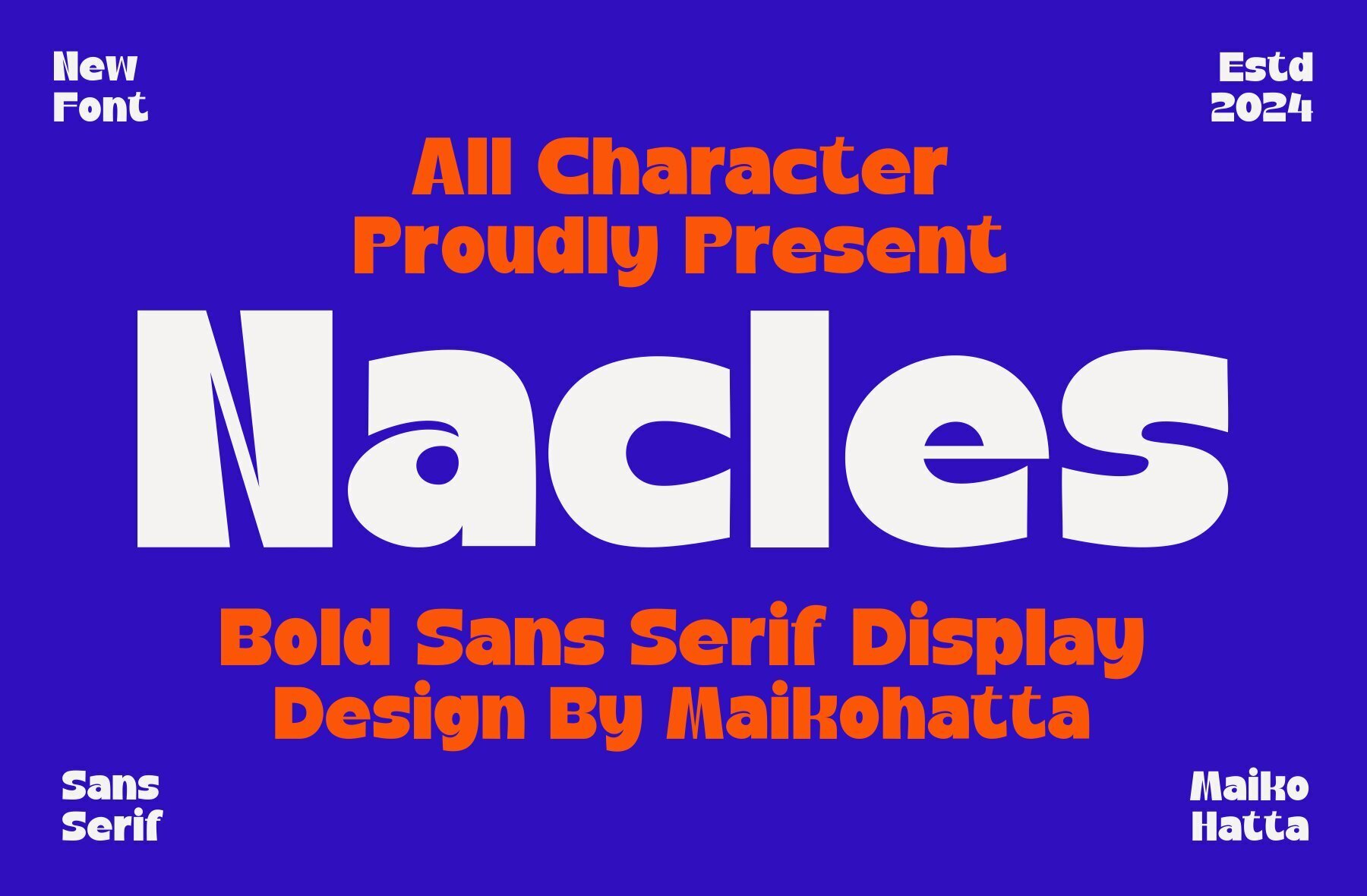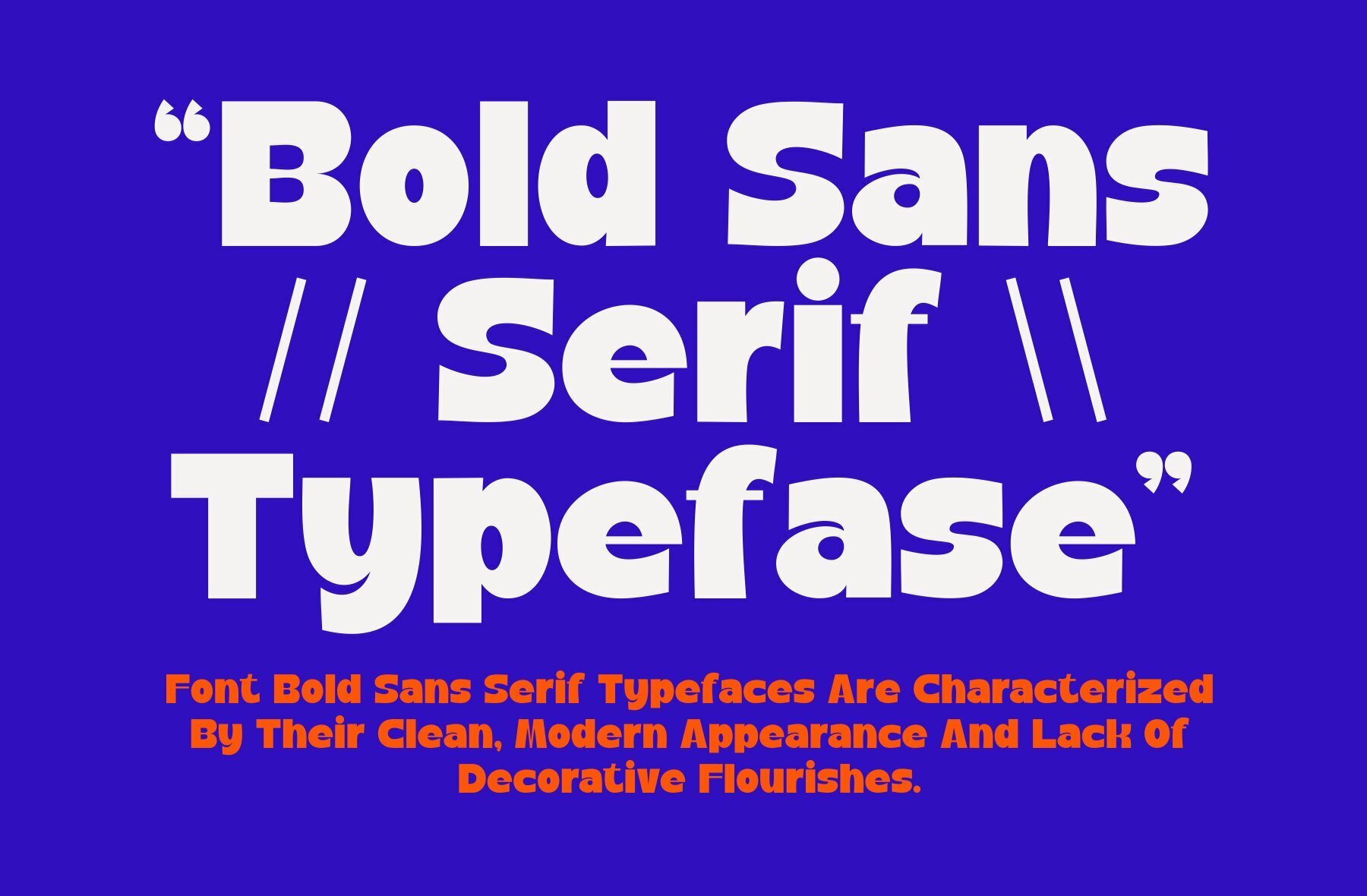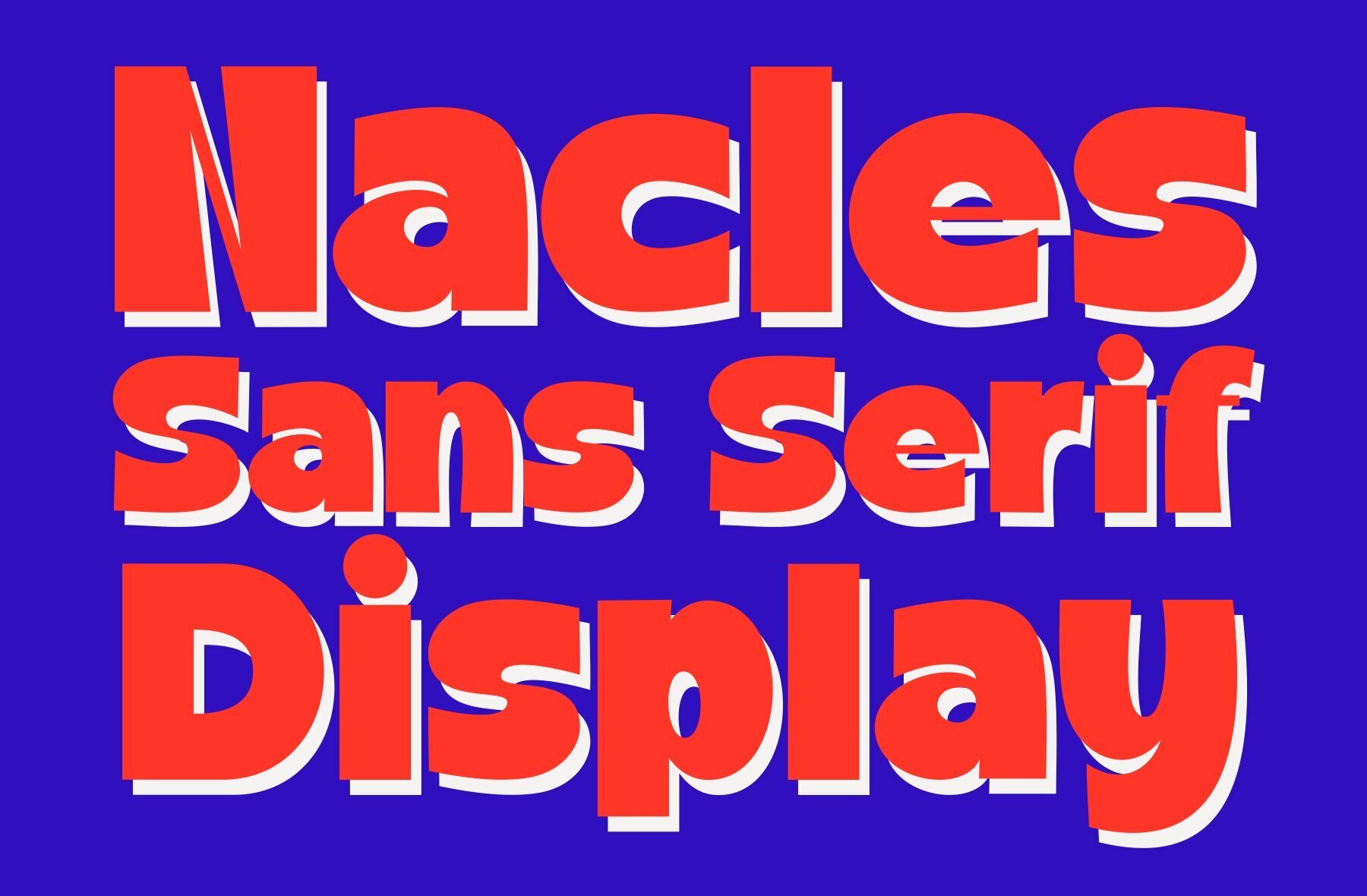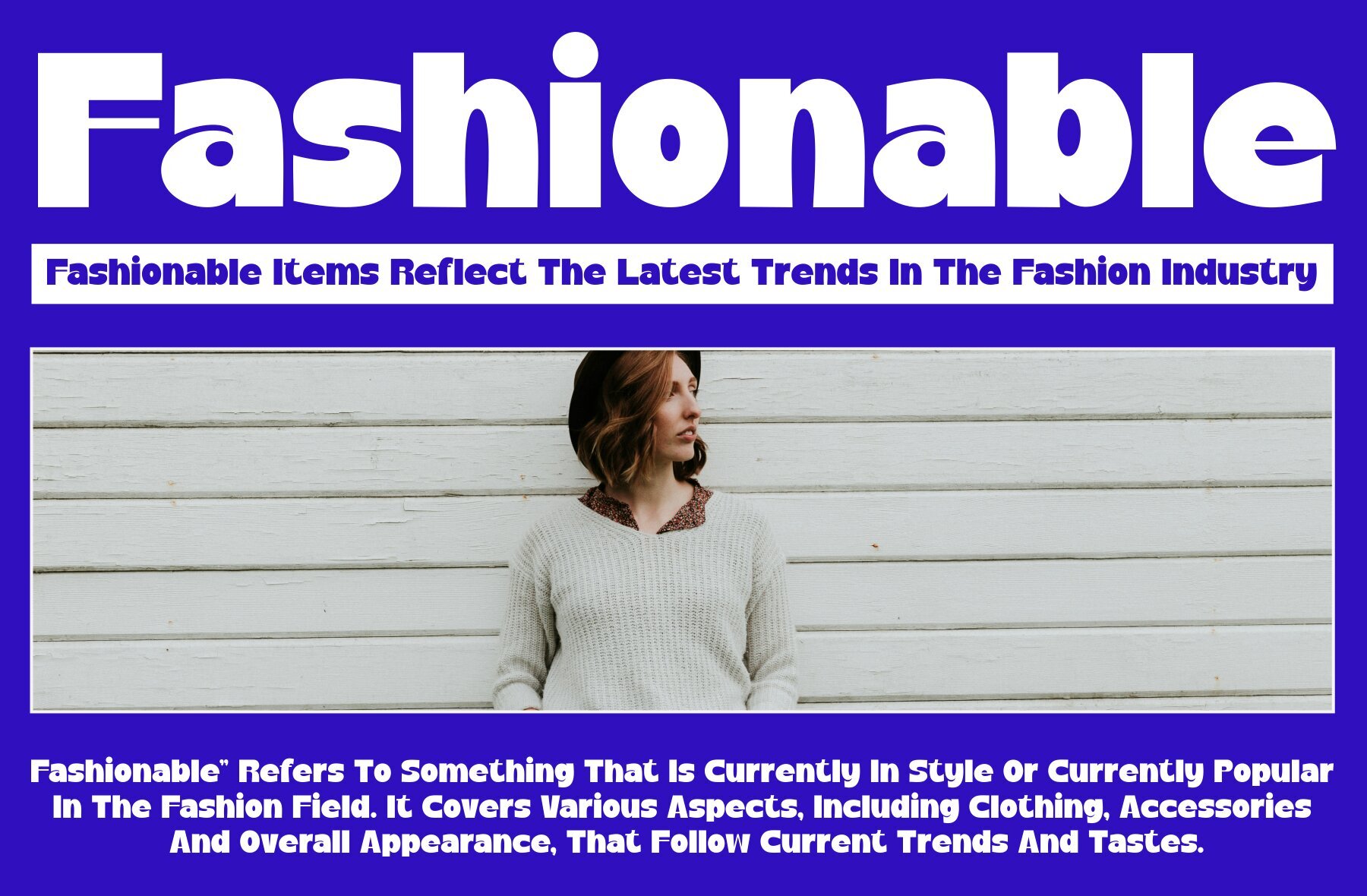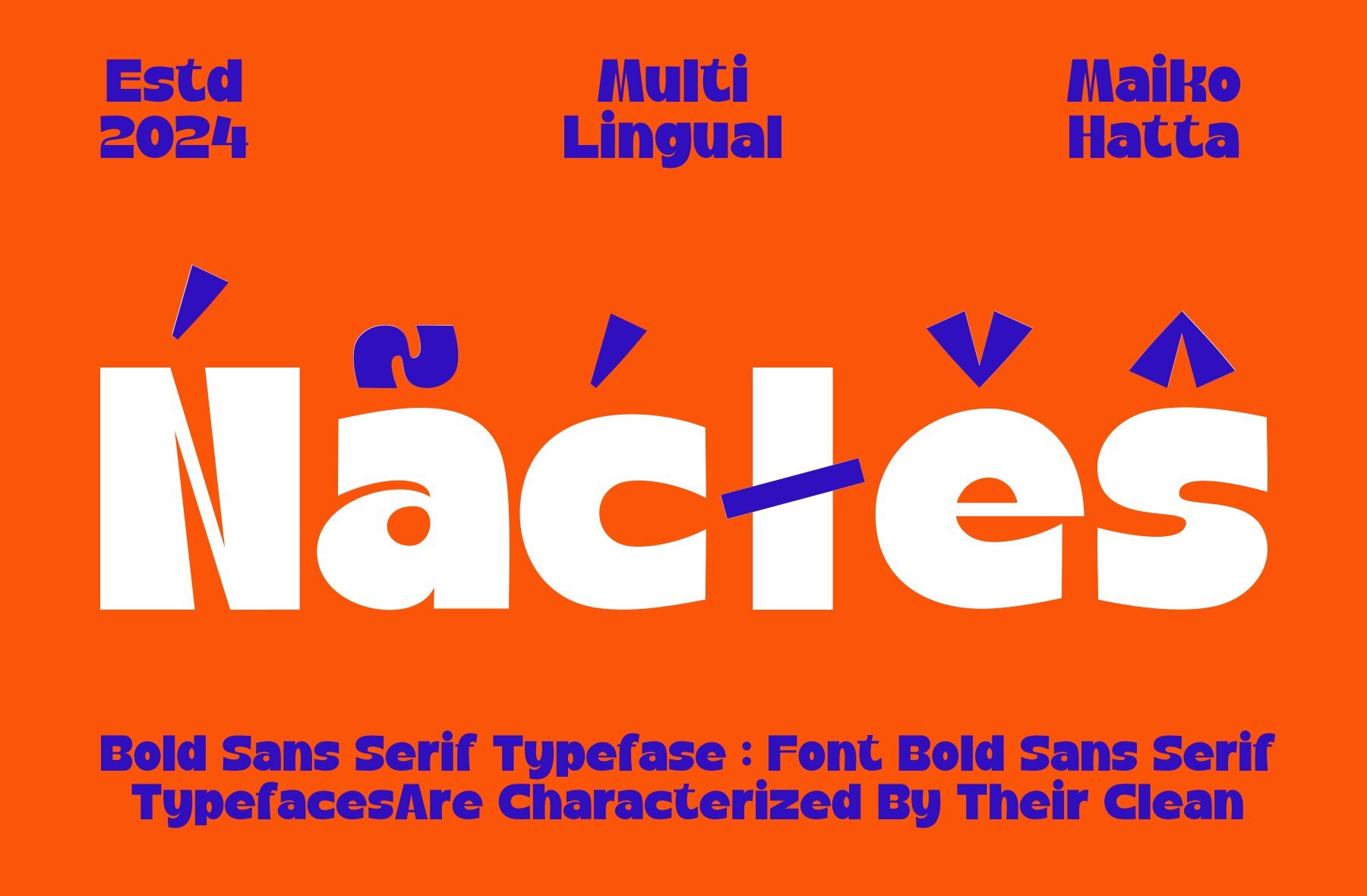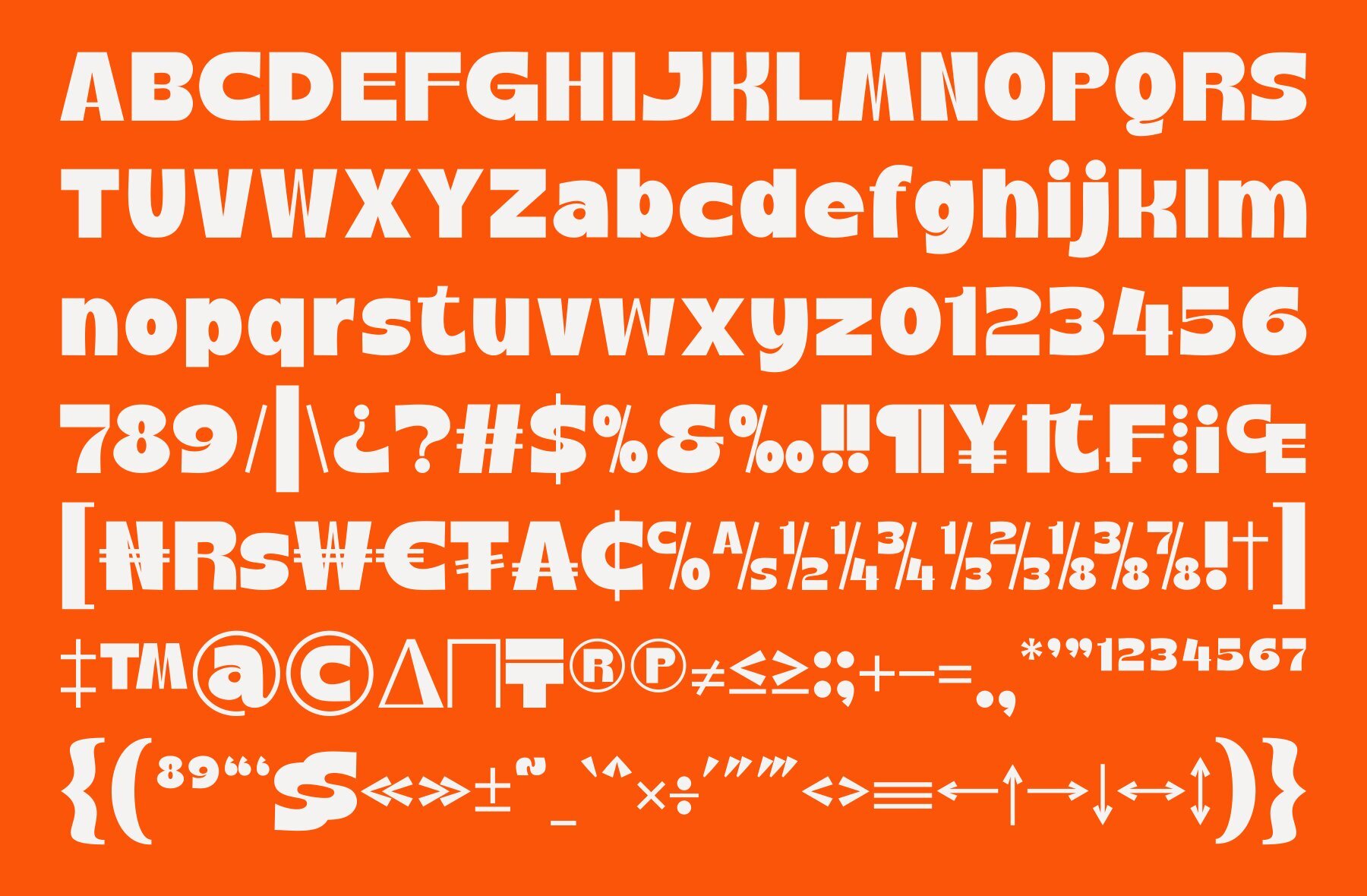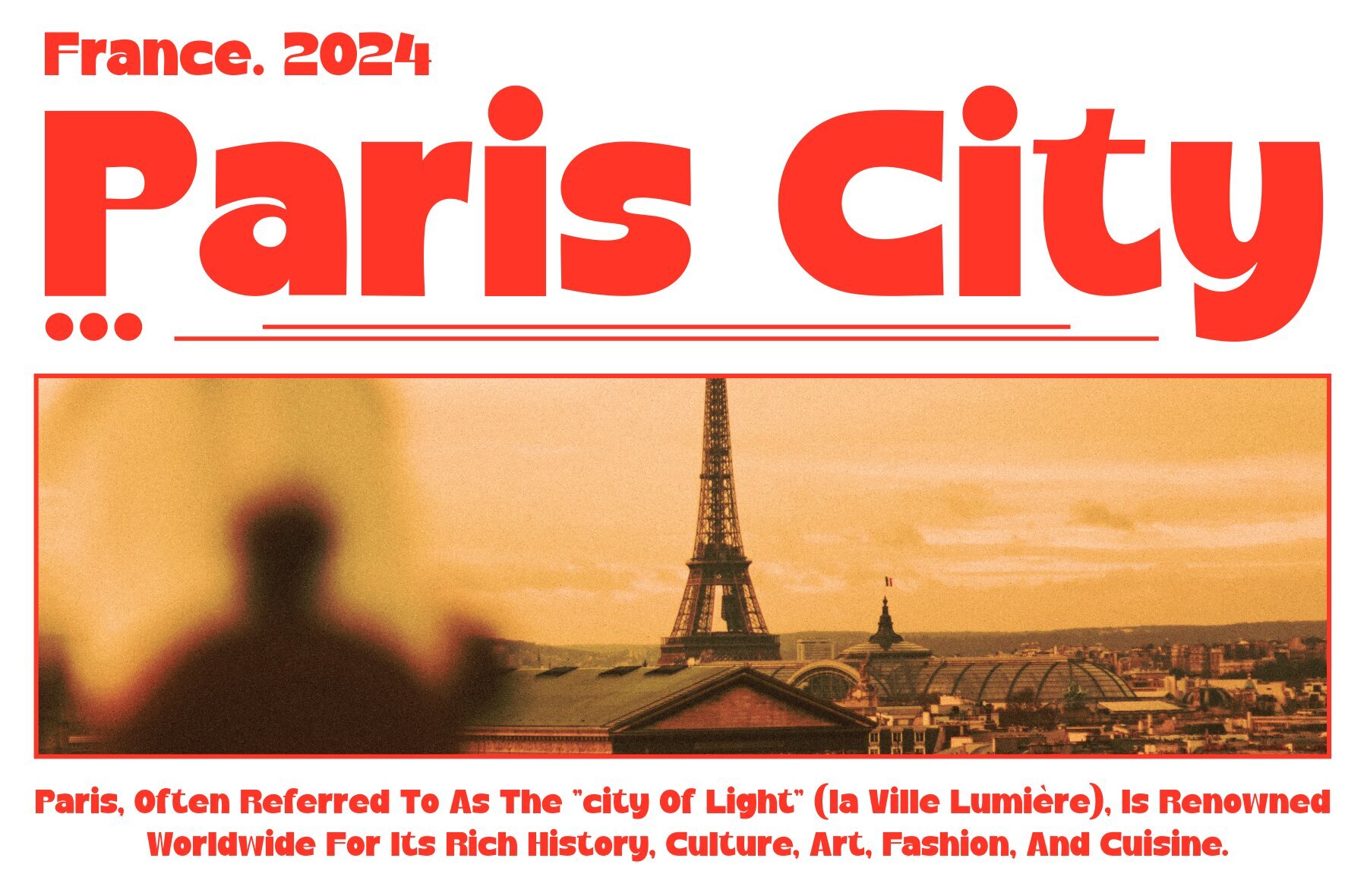
Nacles Font
Nacles Regular
This bold sans-serif font offers a clean and modern appearance, making it ideal for a wide variety of design projects. Its strong, blocky characters provide excellent legibility, suitable for headlines, logos, branding, advertising, and web design. This geometric and minimalist typeface is perfect for contemporary designs that require a powerful visual impact.